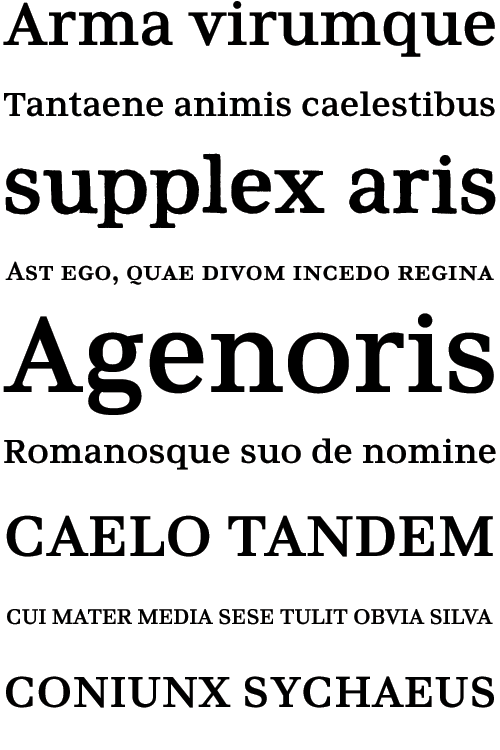
AE Newburgh
MADType began from scratch to design this custom font for American Eagle Outfitters. AE was looking for a strong typeface that was something like a Clarendon style face but with more Garamond-like proportions. MADType created proportional matching smallcaps to go along with the regular weight.
Year Designed:
2005-2006
Weights:
Regular, SmallCaps, Sketchy
In Use:
AE in store sneaker poster
AE hangtag 1
AE hangtag 2
AE Holiday signage
AE Holiday signage 2
AE window signage